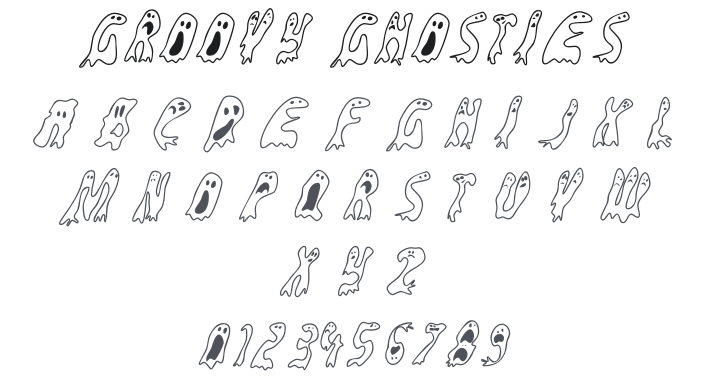
Groovy Ghosties Font Family
About Groovy Ghosties
Groovy Ghosties is a novelty Halloween display typeface where every letter is formed from cute, outlined ghost characters — transparent, floaty little spirits that collectively spell out your text. The result is charming and spooky at the same time. Perfect for Halloween party invitations, children's haunted house designs, seasonal packaging, spooky greeting cards, and playful ghost-themed branding.